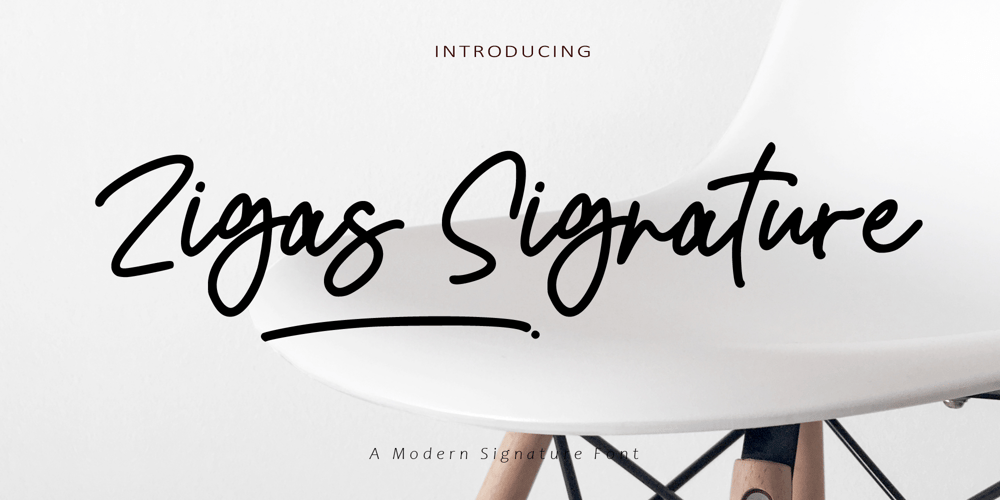
Zigas Signature Font Family was designed by Amin Maryono and published by Aminmario Studio. Zigas Signature contains 2 styles and family package options. Zigas Signature is a stylish typeface that has natural hand write looks. It gives a vintage and sophisticated vibe to your design project.Zigas Signature is perfect for branding projects, logo, wedding designs, social media posts, advertisements, product packaging, product designs, label, photography, watermark, invitation, stationery and any projects that need handwriting taste.